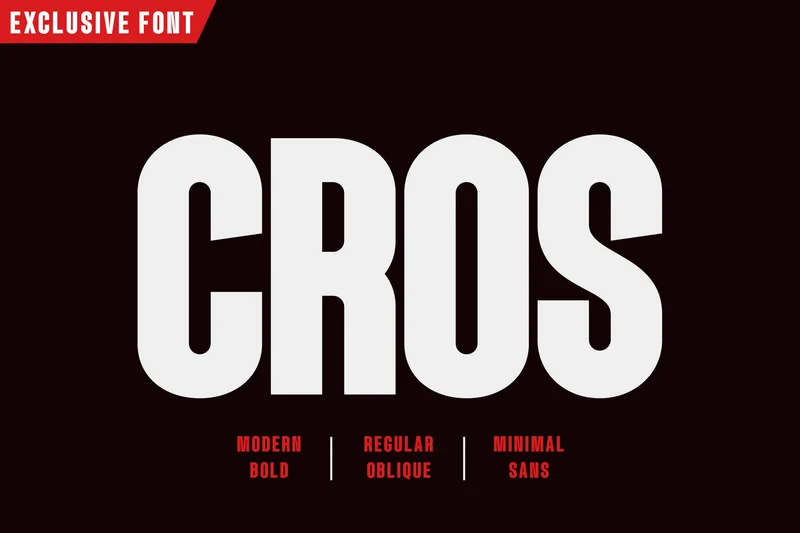
Cros – Modern Bold
Introducing CROS, a modern and minimal sans-serif font engineered for clarity and impact. Its bold, geometric letterforms command attention, making it the perfect asset for tech startups, sports branding, and contemporary logo design. With the demand for fonts in the “food” and “sports” niches showing significant growth, CROS offers a clean, versatile solution for modern packaging and energetic campaigns. As an exclusive Envato Elements font, CROS is built to make your projects stand out.
All Caps, Numbers & Punctuation
Regular & Oblique